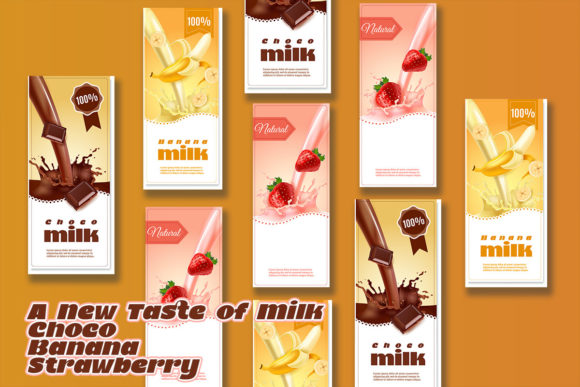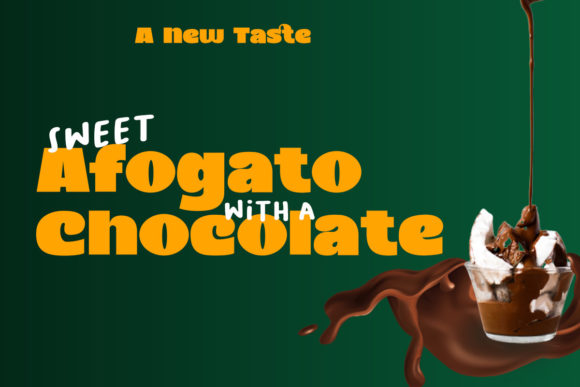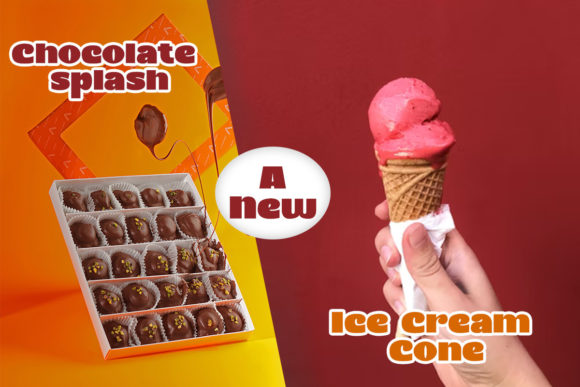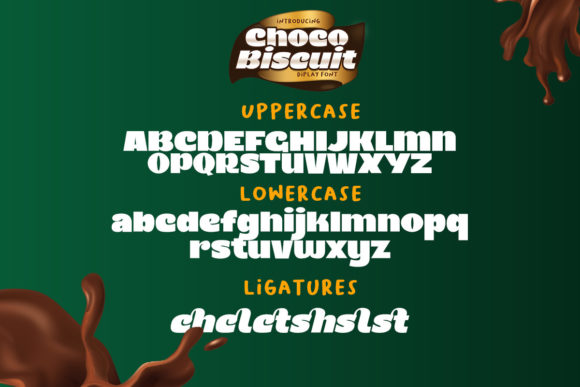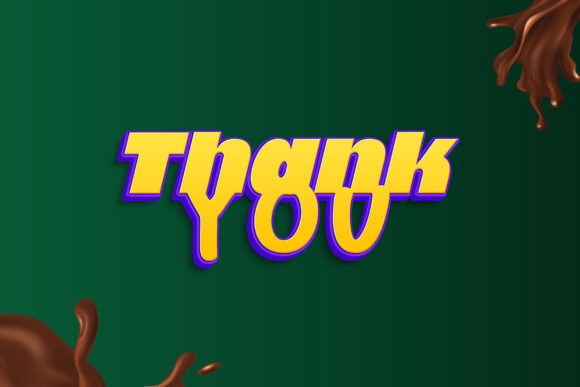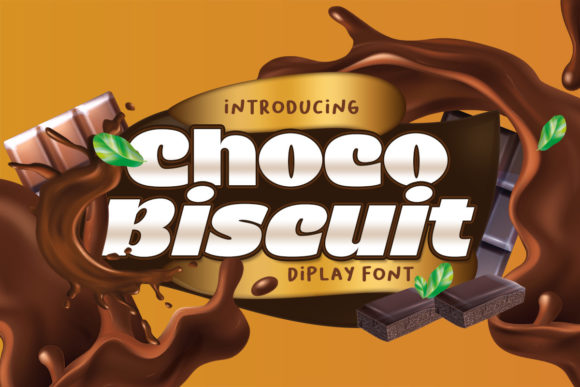
Introducing Choco Biscuit Font: The Perfect Addition to Your Design Arsenal
Are you tired of using the same old fonts for your social media posts, craft projects, and branding materials? Look no further than Choco Biscuit Font, a stylish and bold display font that’s sure to make your designs stand out. In this article, we’ll dive into the features and benefits of Choco Biscuit Font, and explore how you can use it to elevate your designs.
What is Choco Biscuit Font?
Choco Biscuit Font is a modern, bold, and stylish display font that’s perfect for a variety of design applications. Its unique blend of curves and lines creates a visually appealing aesthetic that’s sure to grab attention. Whether you’re a designer, crafter, or social media influencer, Choco Biscuit Font is an excellent addition to your design toolkit.
Key Features of Choco Biscuit Font
- Bold and Stylish: Choco Biscuit Font is a bold and stylish font that’s perfect for making a statement. Its unique design ensures that your text will stand out from the crowd.
- Versatile: Choco Biscuit Font is incredibly versatile and can be used for a wide range of design applications, including branding, social media posts, craft projects, invitations, banners, and more.
- Perfect for Crafty Projects: Choco Biscuit Font is a great choice for crafty projects, such as scrapbooking, card making, and other paper crafts.
How to Use Choco Biscuit Font
Choco Biscuit Font is incredibly easy to use and can be incorporated into a variety of design projects. Here are a few ideas to get you started:
- Branding: Use Choco Biscuit Font to create bold and eye-catching logos, business cards, and other branding materials.
- Social Media: Add a touch of personality to your social media posts with Choco Biscuit Font. Use it to create eye-catching graphics, quotes, and other engaging content.
- Crafts: Choco Biscuit Font is a great choice for crafty projects, such as scrapbooking, card making, and other paper crafts.
- Invitations: Use Choco Biscuit Font to create stylish and elegant invitations for parties, weddings, and other special events.
- Banners: Create eye-catching banners with Choco Biscuit Font that are perfect for events, sales, and promotions.
- Stationery: Add a touch of personality to your stationery with Choco Biscuit Font. Use it to create stylish and elegant letterheads, envelopes, and more.
Why Choose Choco Biscuit Font?
With so many fonts available, why choose Choco Biscuit Font? Here are a few reasons why:
- Unique Design: Choco Biscuit Font has a unique and stylish design that’s sure to make your designs stand out.
- High-Quality: Choco Biscuit Font is a high-quality font that’s designed to produce crisp and clear text.
Tips and Tricks for Using Choco Biscuit Font
Here are a few tips and tricks for getting the most out of Choco Biscuit Font:
- Experiment with Colors: Choco Biscuit Font looks great in a variety of colors. Experiment with different colors to find the one that works best for your design.
- Use it with Other Fonts: Choco Biscuit Font pairs well with other fonts. Experiment with different font combinations to create a unique look.
- Pay Attention to Spacing: Make sure to pay attention to spacing when using Choco Biscuit Font. Adjust the spacing to create a clean and elegant look.
| Font Name | Choco Biscuit Font |
| Author | Lettercorner Studio |
Choco Biscuit Font is a stylish and bold display font that’s perfect for designers and crafters who want to add a touch of personality to their designs. With its unique design, versatility, and ease of use, Choco Biscuit Font is an excellent addition to any design toolkit. Whether you’re creating social media posts, craft projects, or branding materials, Choco Biscuit Font is sure to make your designs stand out.